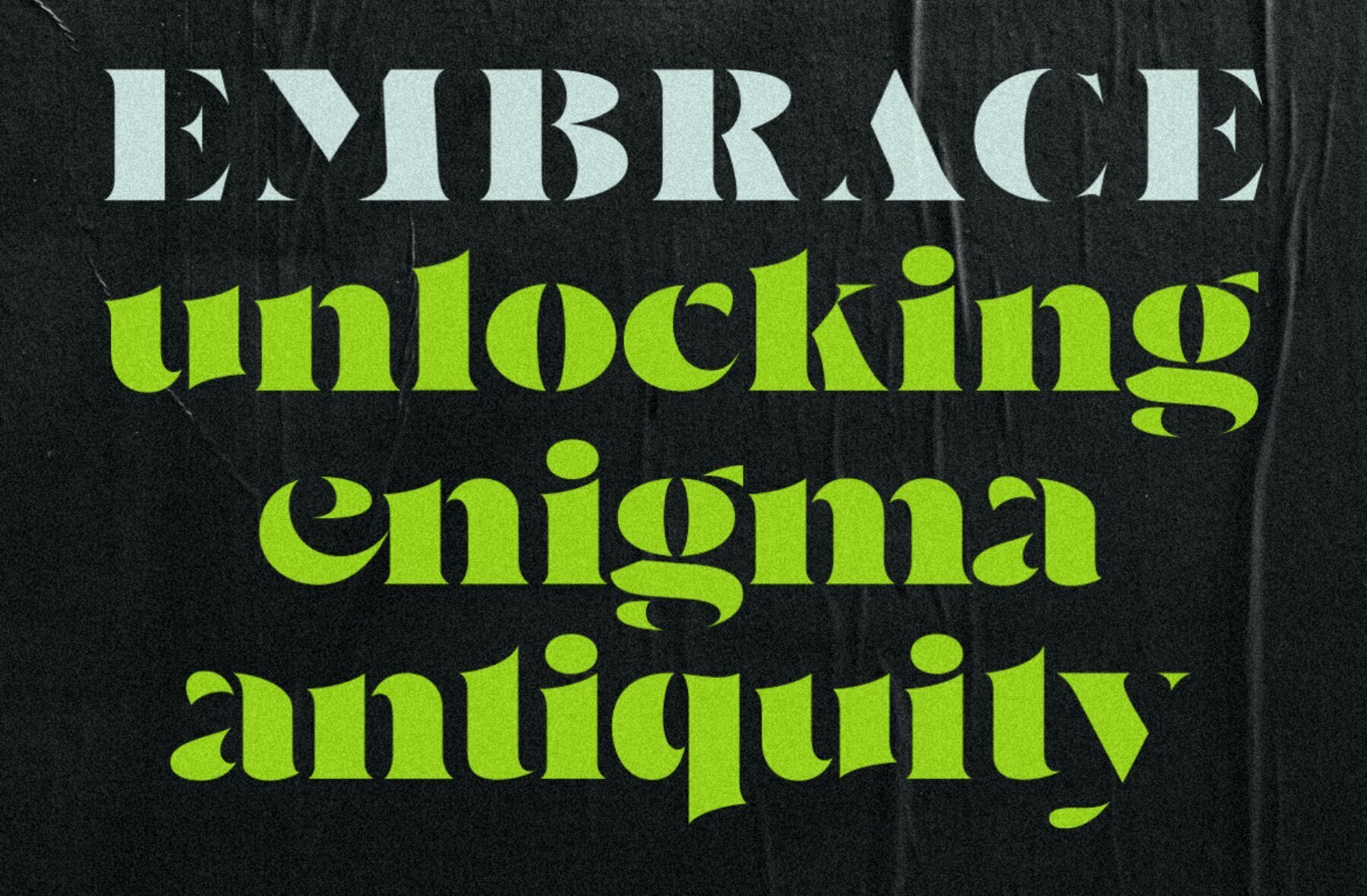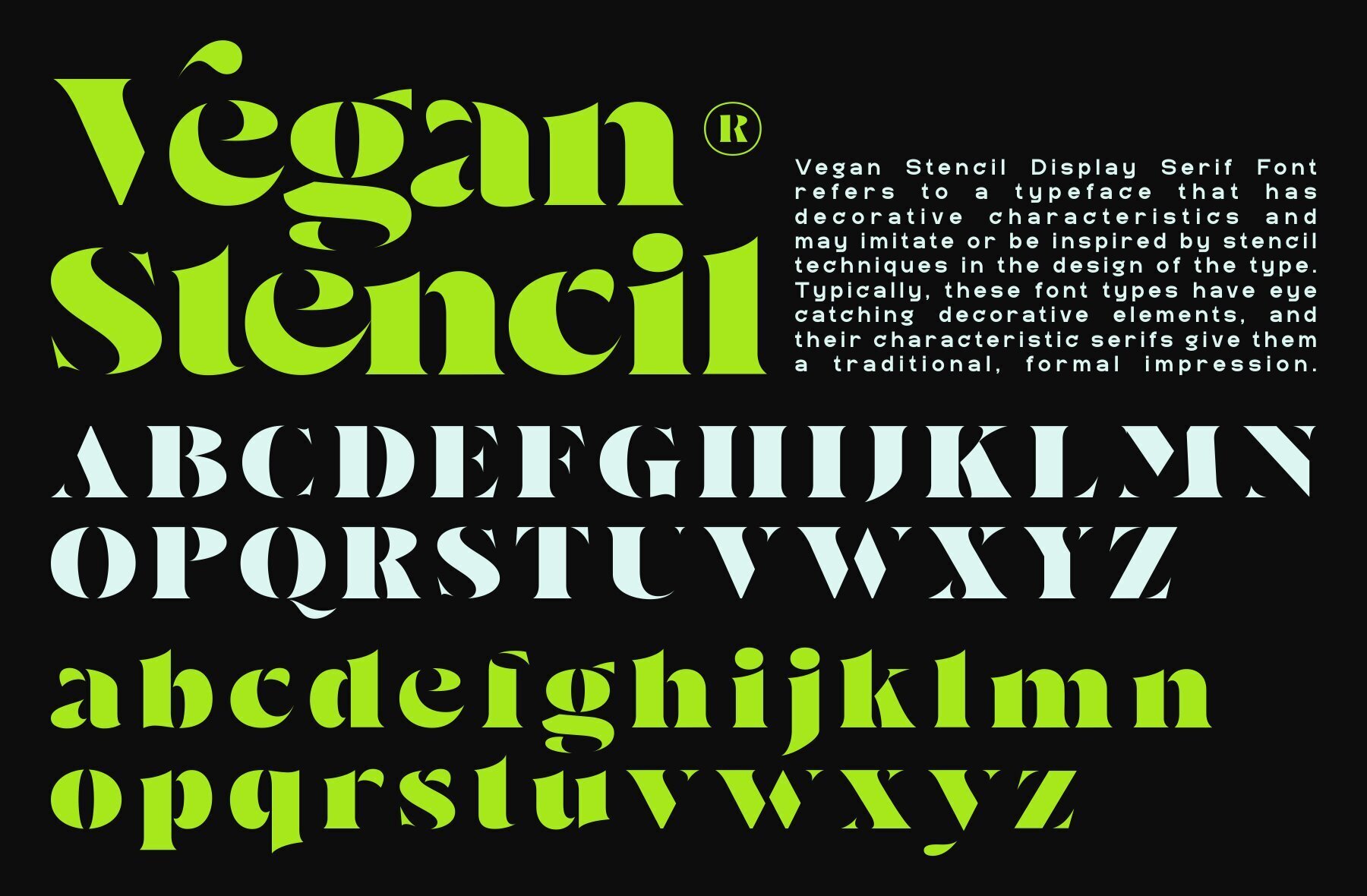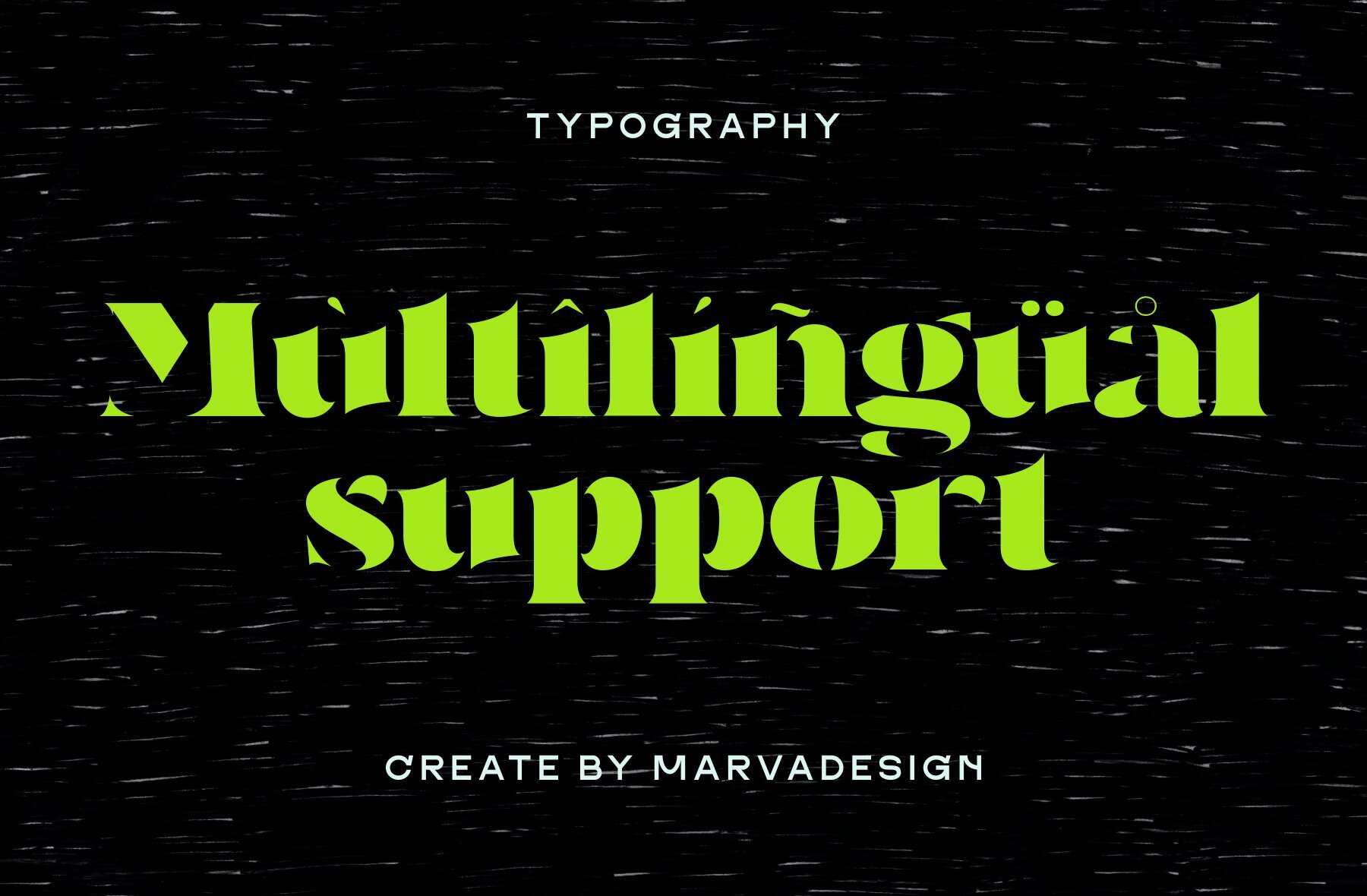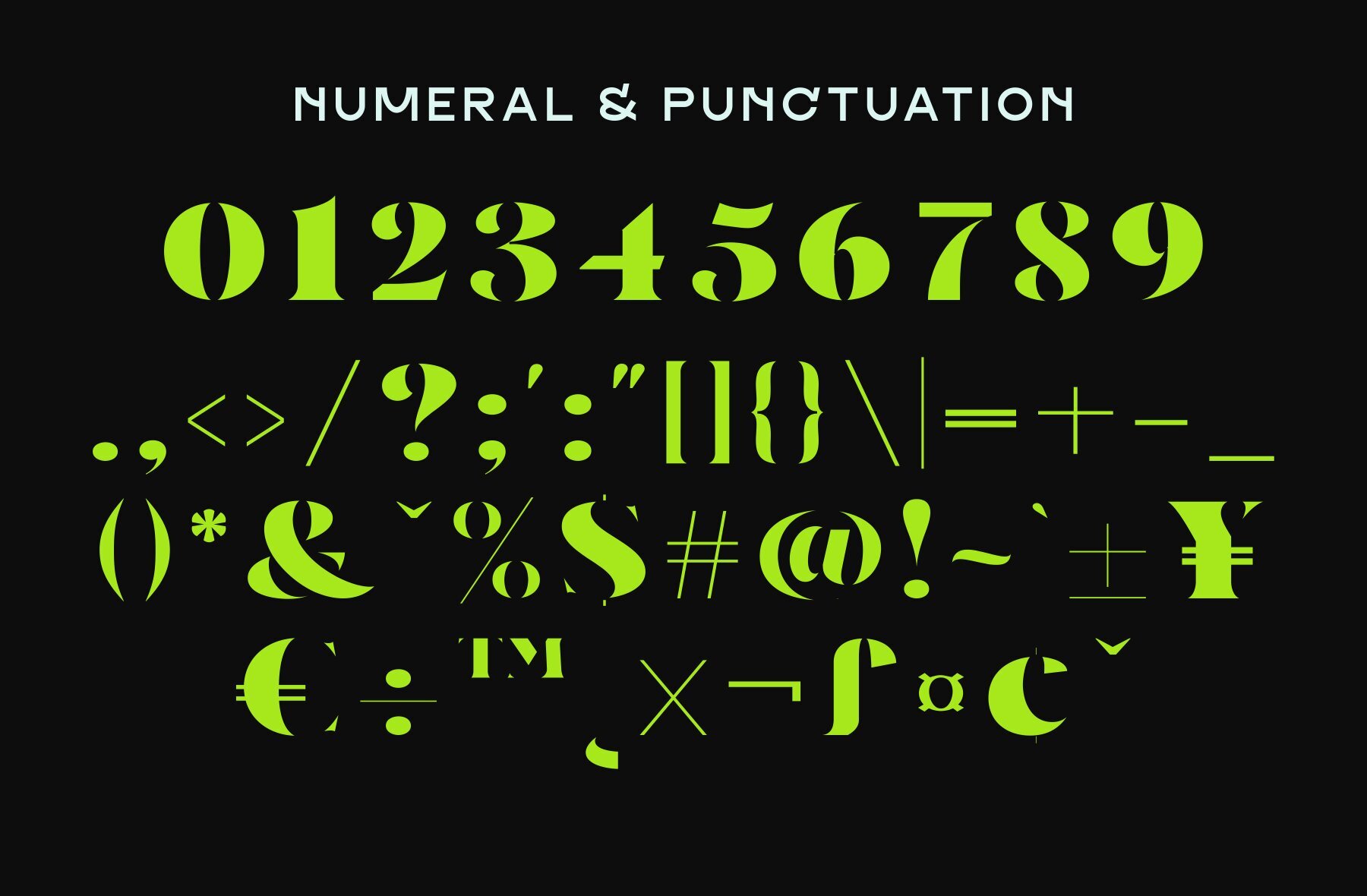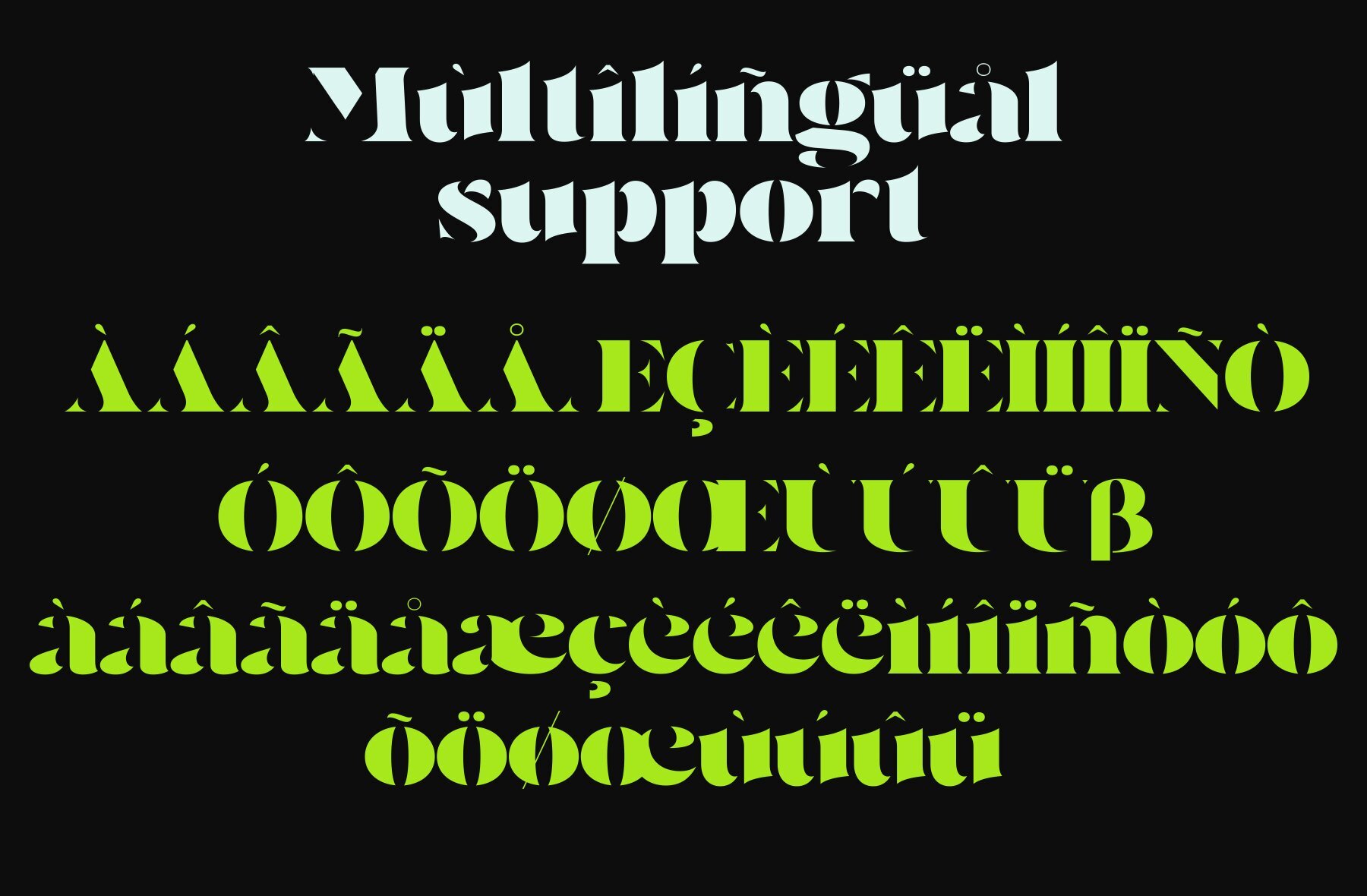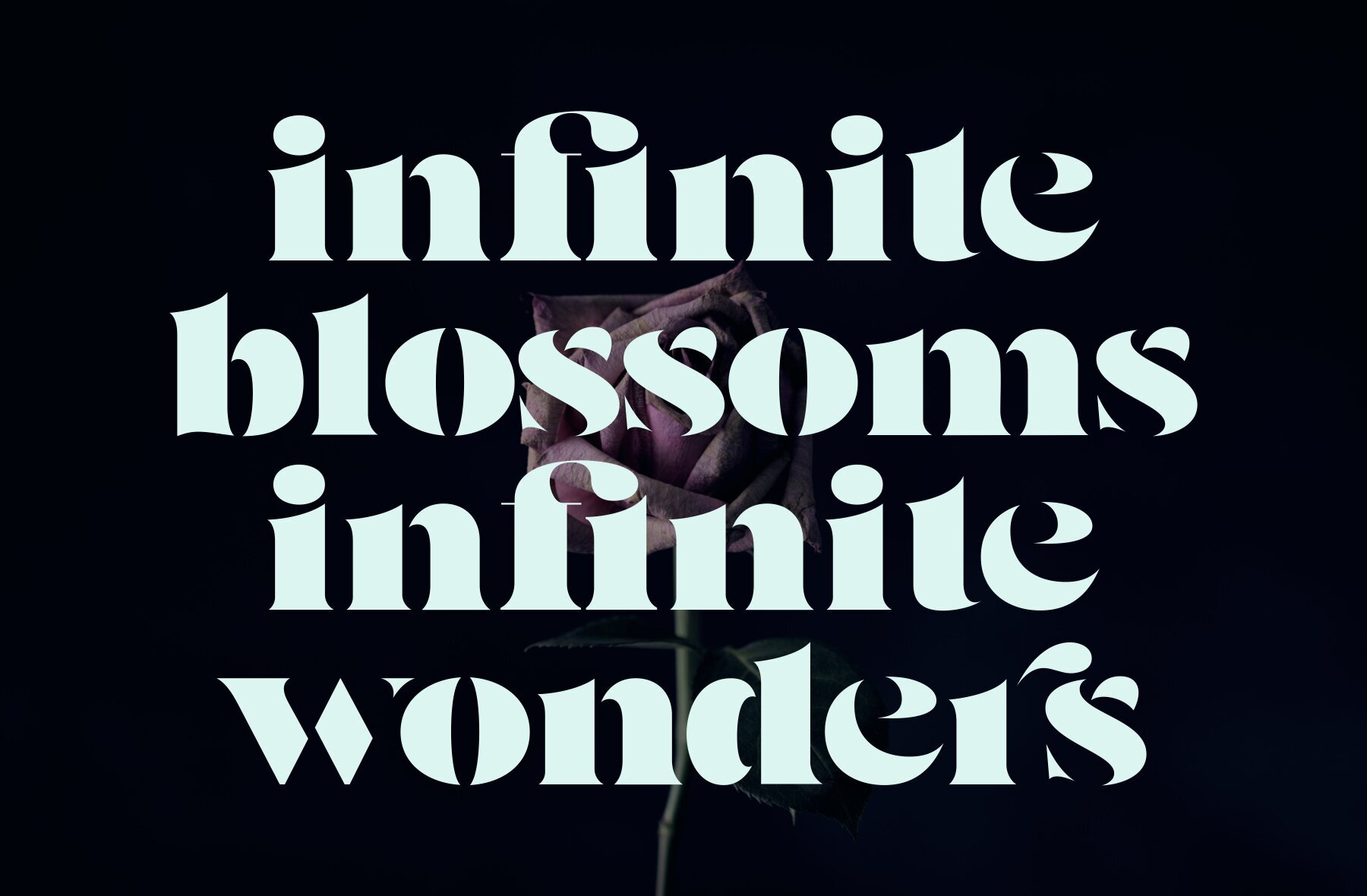
Vegan Font: Bold and Modern Display
The Vegan Font is a bold and authentic display typeface, perfect for a range of branding projects such as logos, templates, and product designs. Its versatile style ensures it stands out in various contexts.
• Uppercase and Lowercase – Offers complete typographic flexibility.
• Multilingual Support – Accommodates diverse language needs.